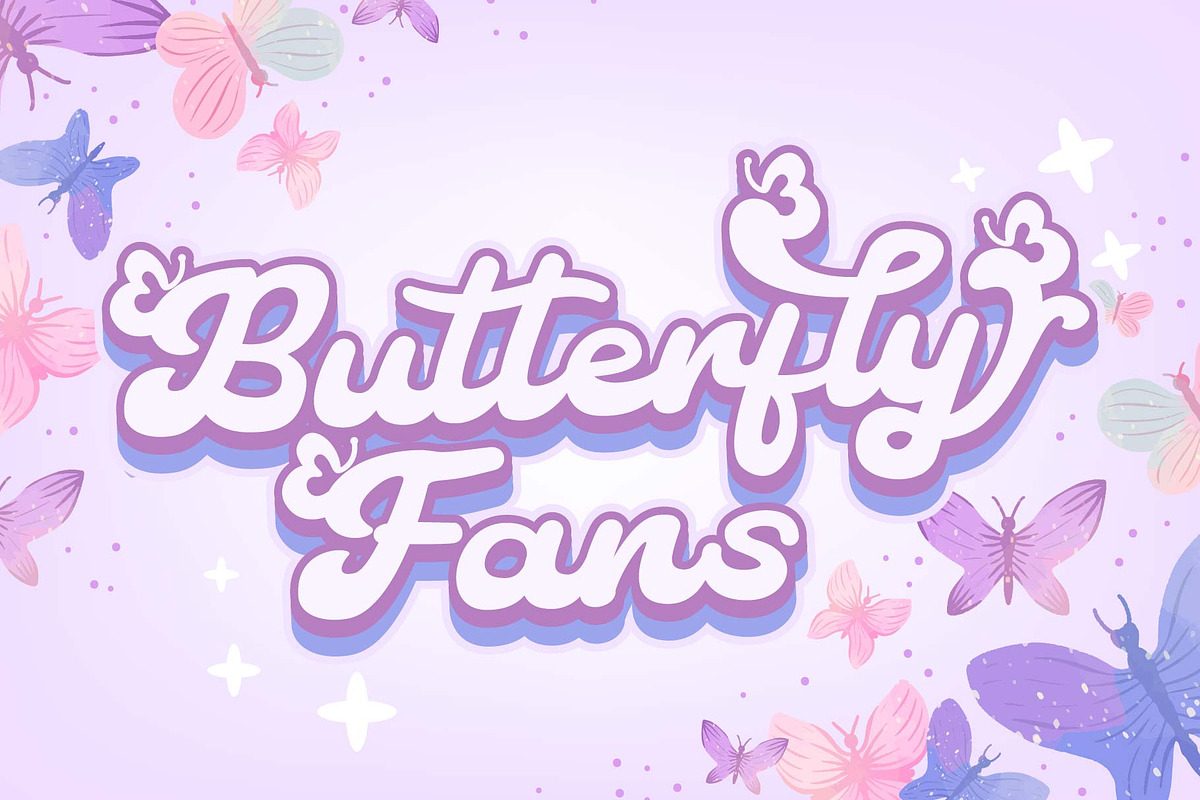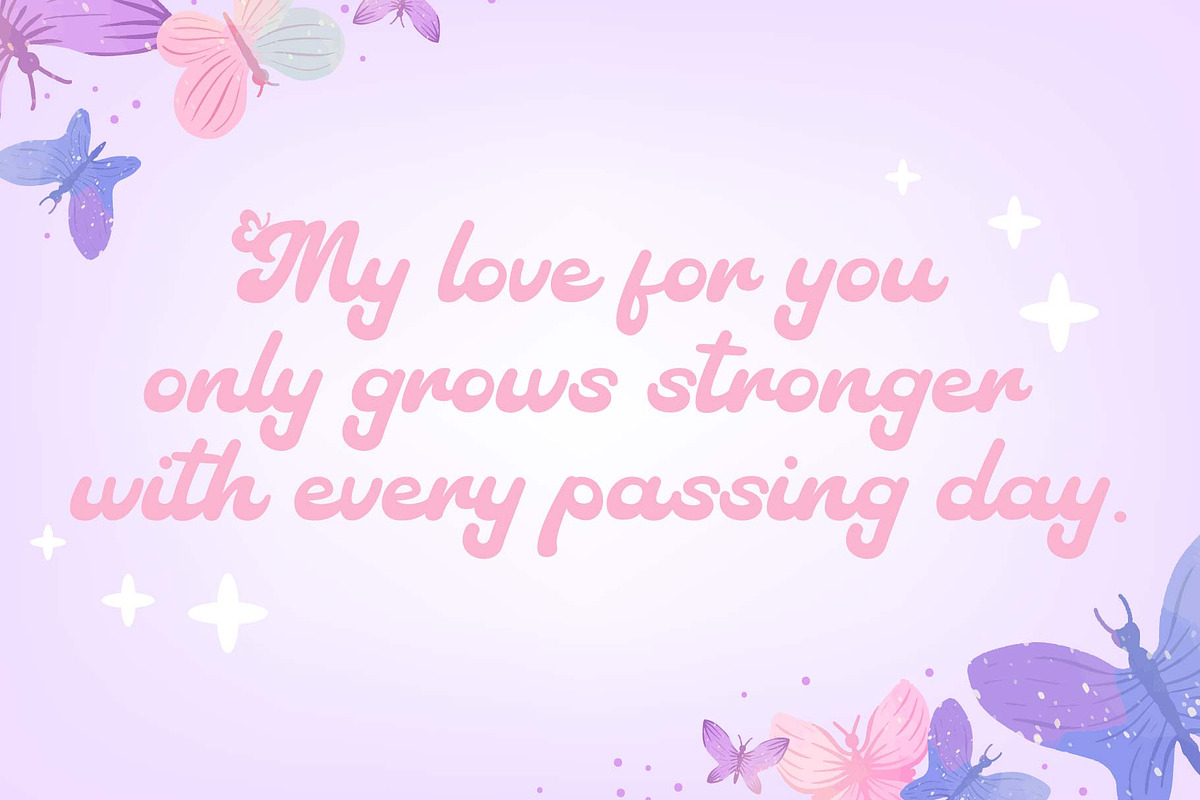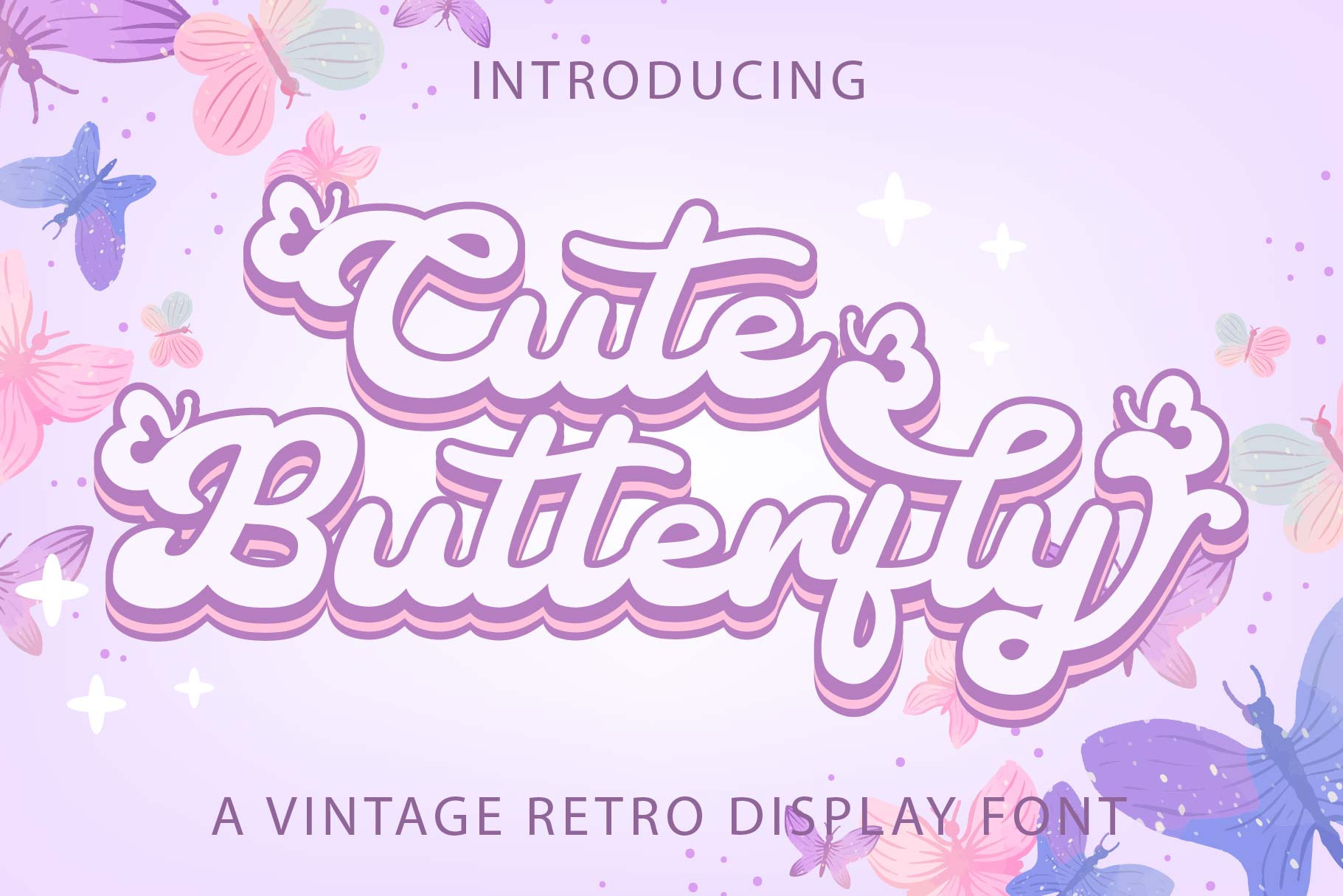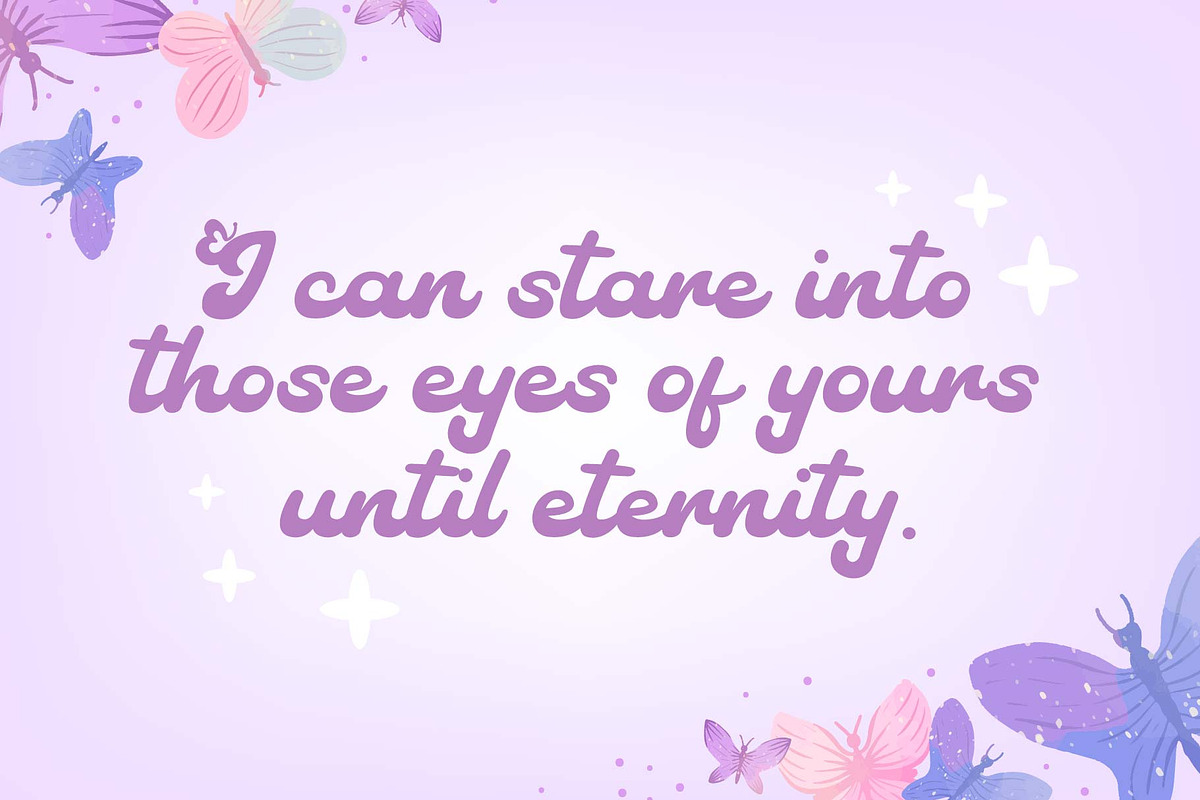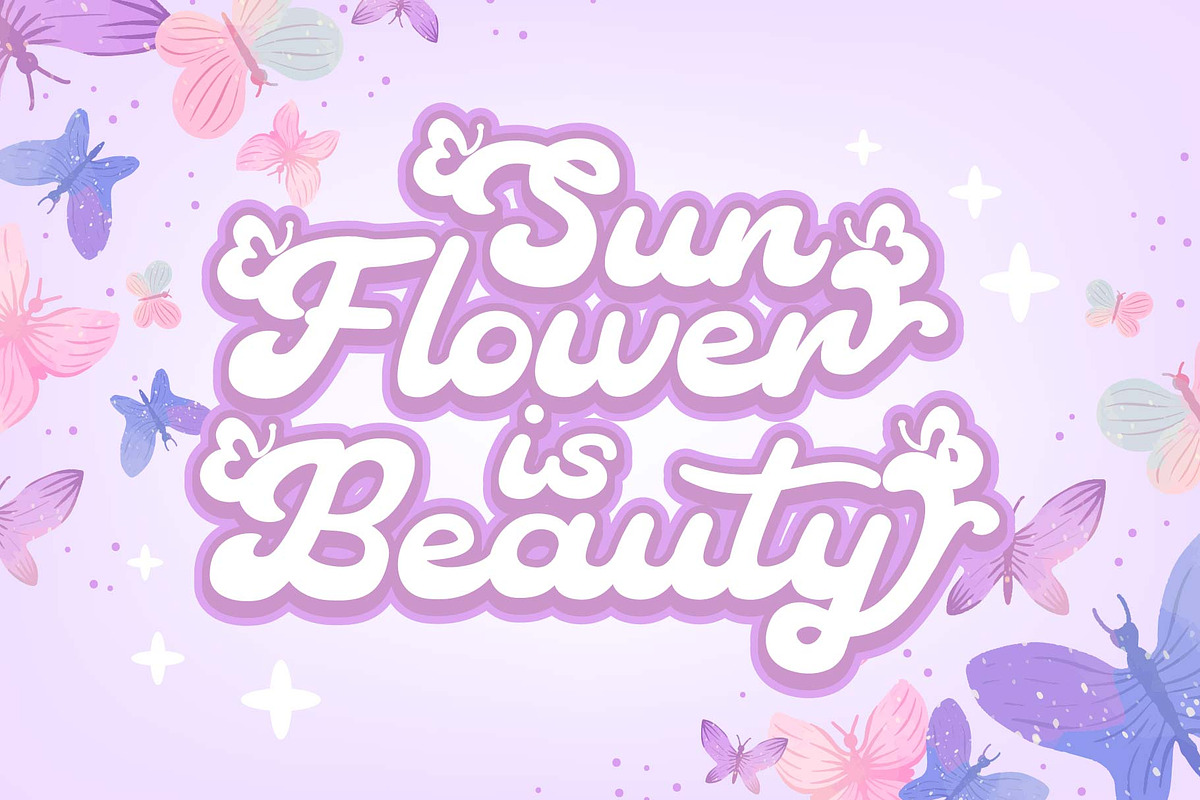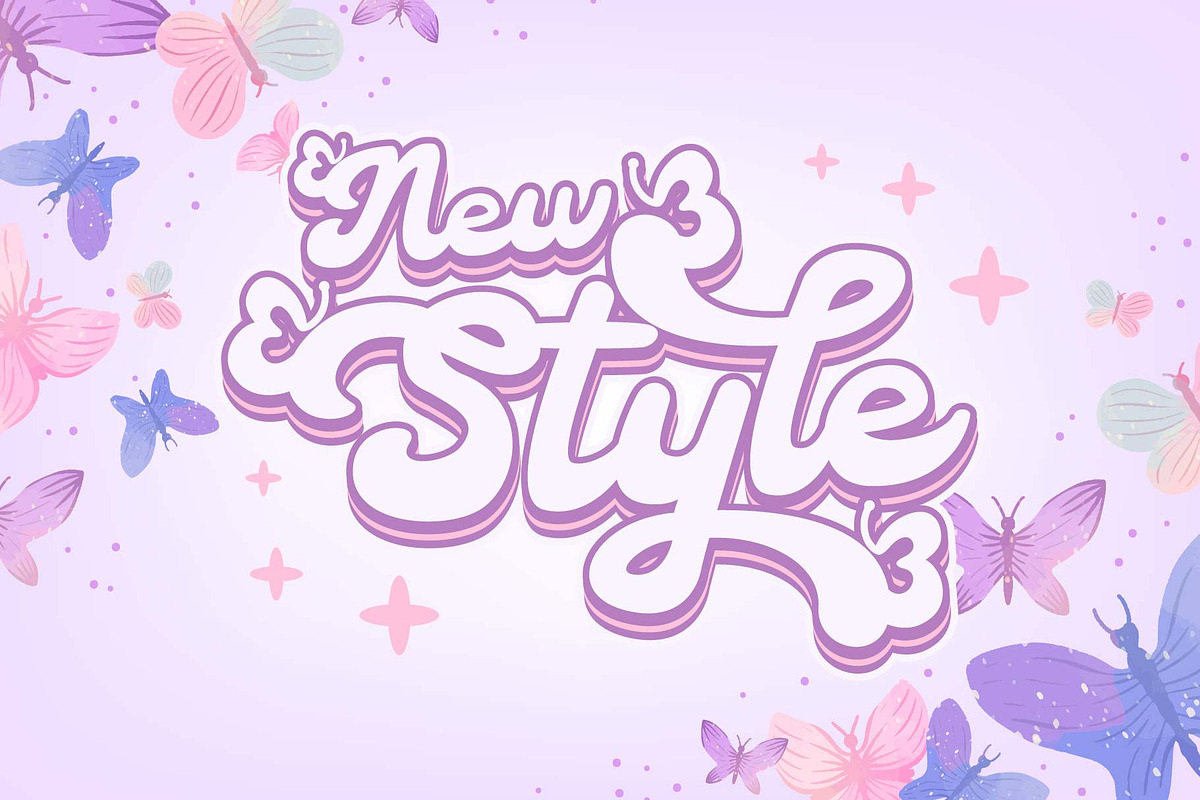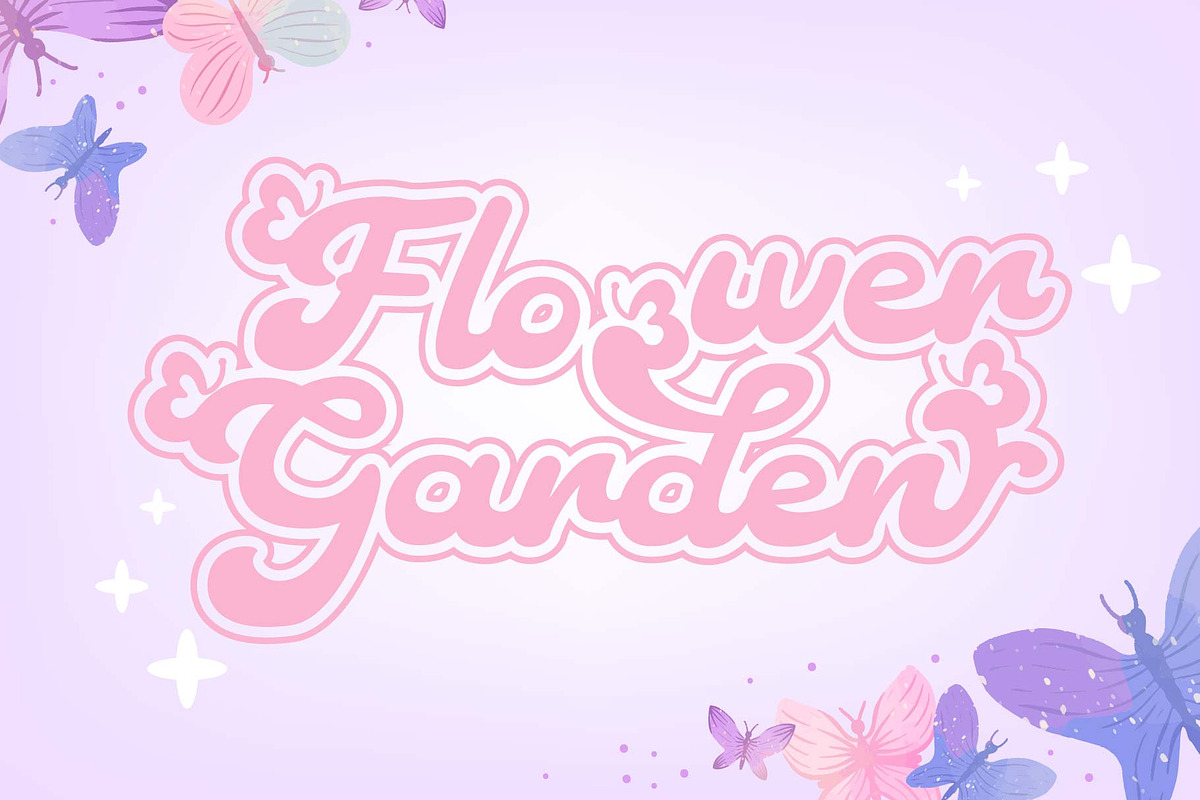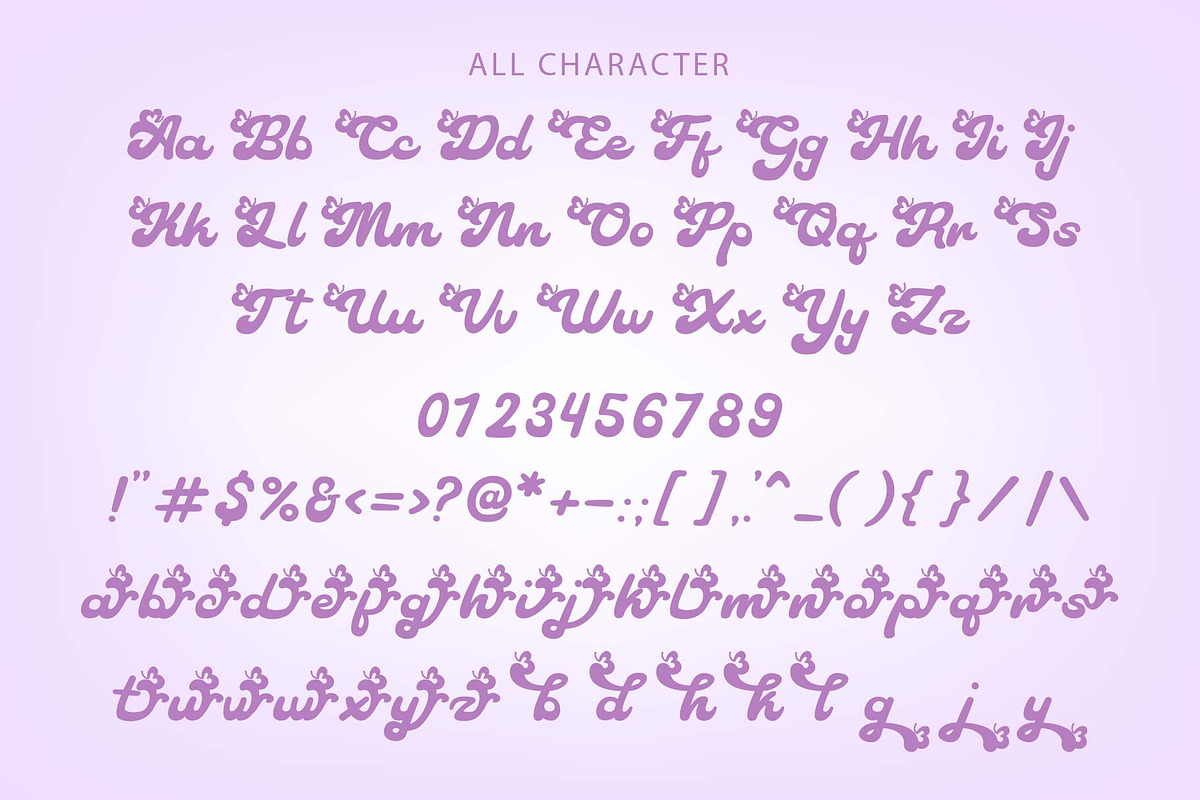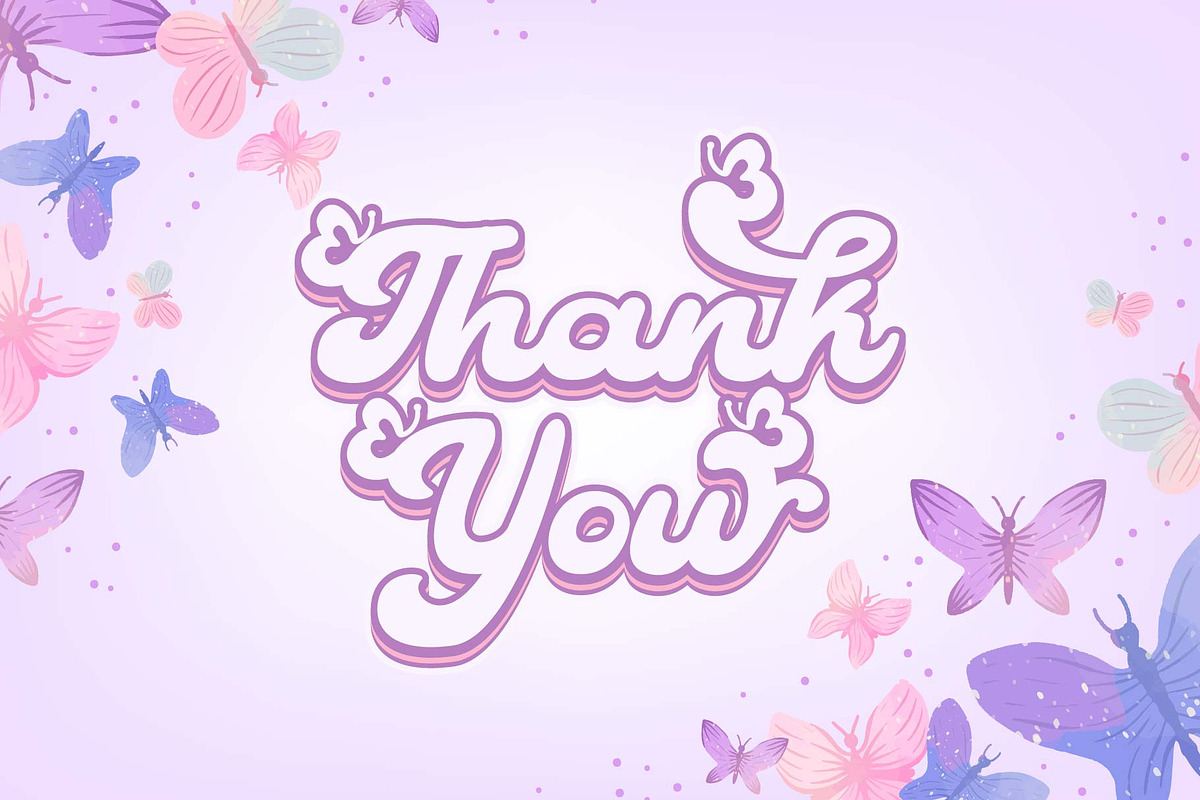
Cute Butterfly - Retro Script Font
Cute Butterfly is a cool, vintage-style handwritten font. Use it to add that special retro touch to any design idea! It can be used for logos, branding, invitations, stationery, wedding designs, social media posts, and much more! This font is PUA encoded which means you can access all glyphs and swashes easily!